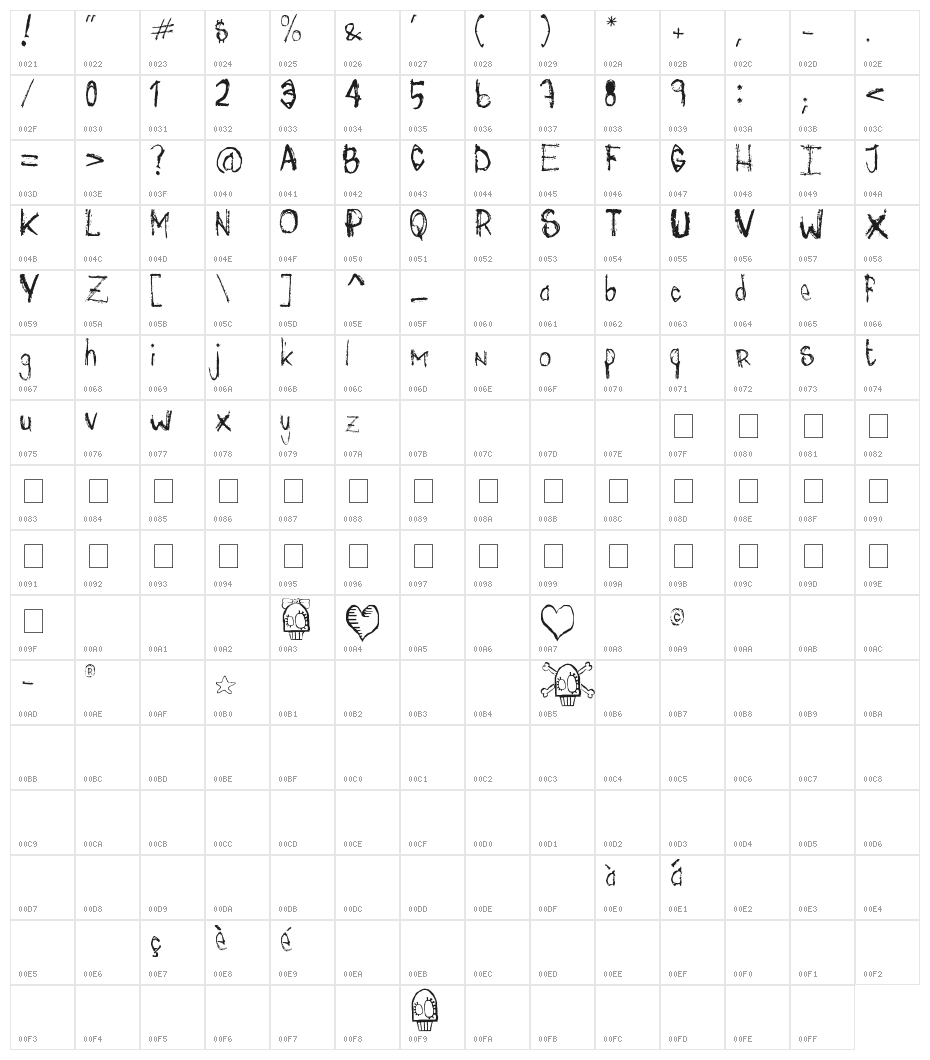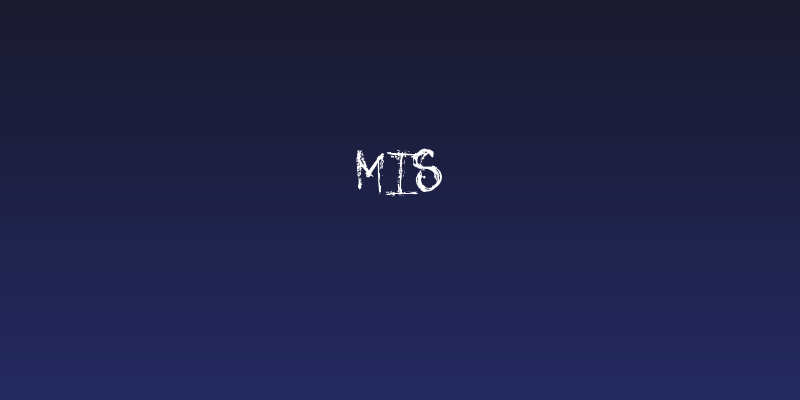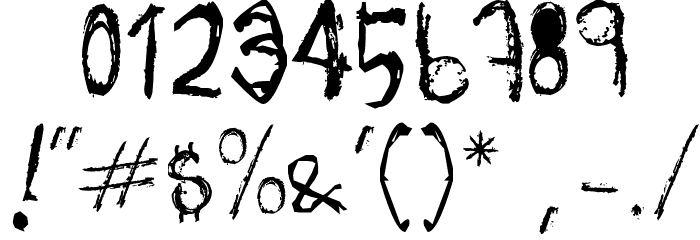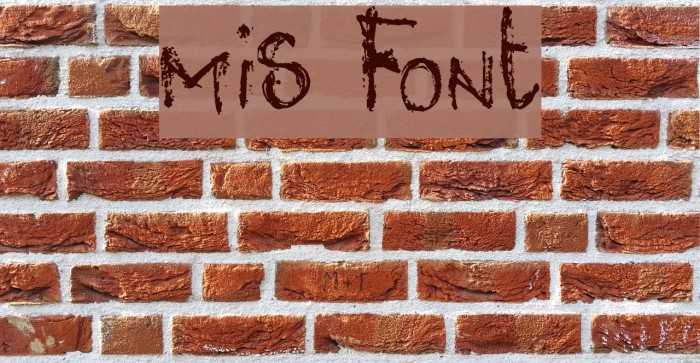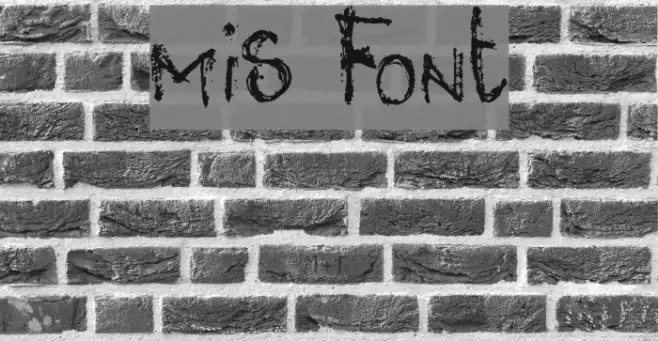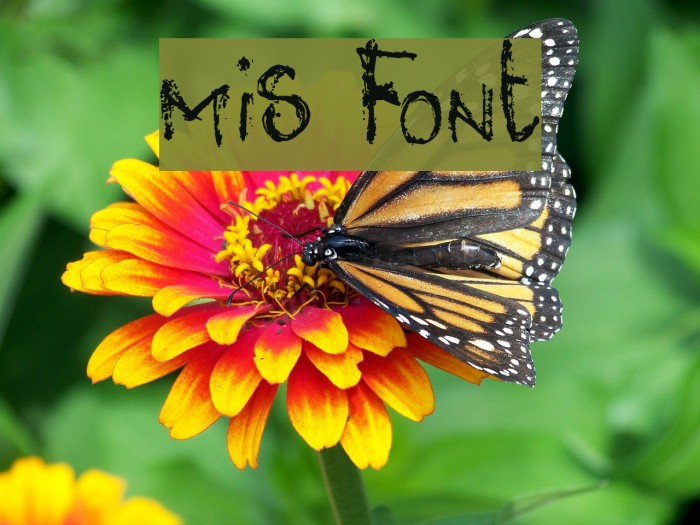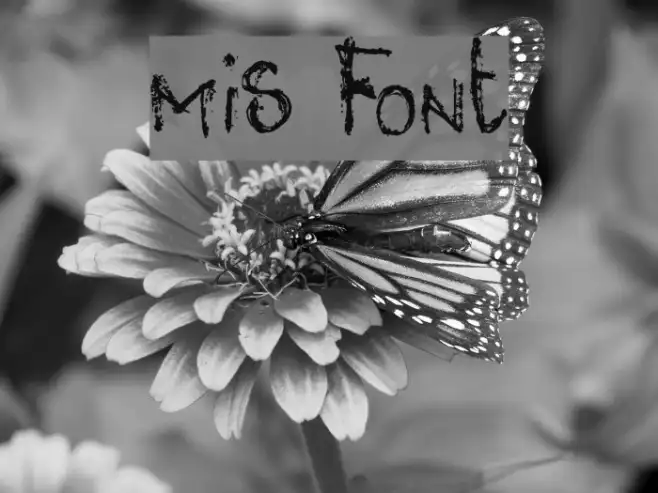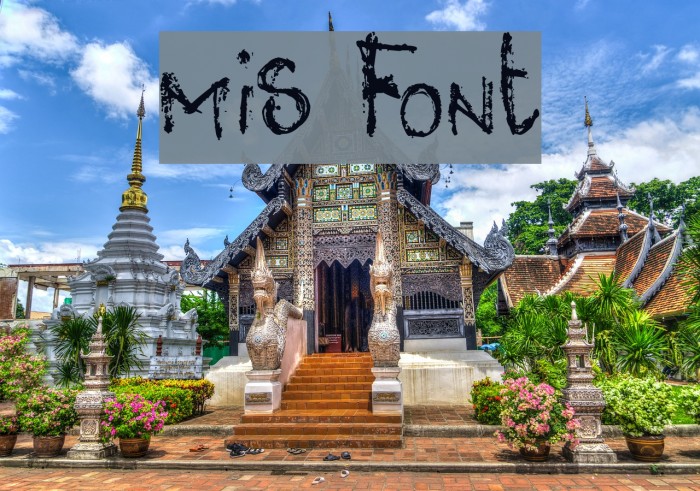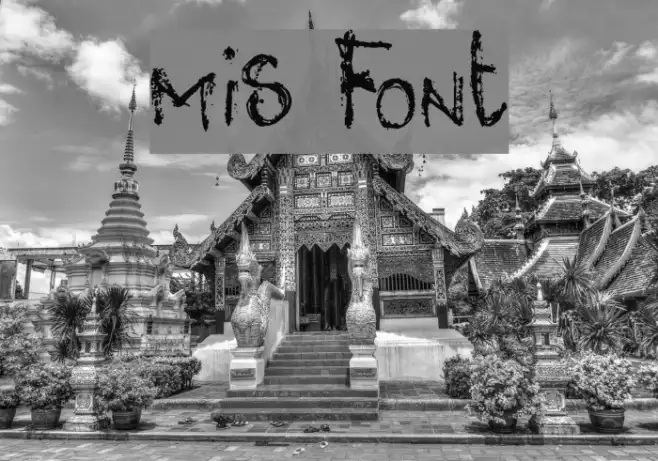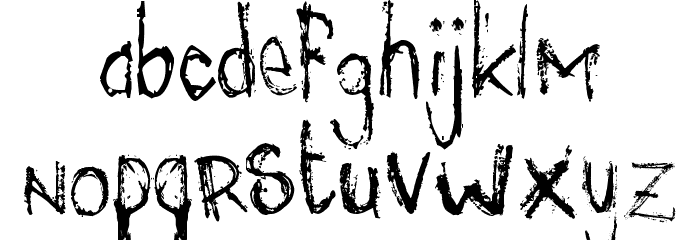
mis Font
mis Description
This font features a distressed and grungy style, characterized by rough edges and a textured appearance that mimics a hand-drawn or painted effect. The uppercase and lowercase letters, as well as numbers and special characters, exhibit an irregular and chaotic design, giving it a raw and edgy feel. The strokes vary in thickness, adding to the font's dynamic and energetic look. This font is ideal for projects that require a bold and unconventional aesthetic, such as music album covers, posters, or any creative work that aims to convey a sense of rebellion or artistic flair.
MIS UPPERCASE
MIS LOWERCASE
MIS OTHER CHARS
| Overall Style | Grunge, Artistic, Edgy |
| Use Case | Headlines, Logos, Artistic projects |
| Proposed Projects | Album covers, posters, street art designs, edgy branding materials. |